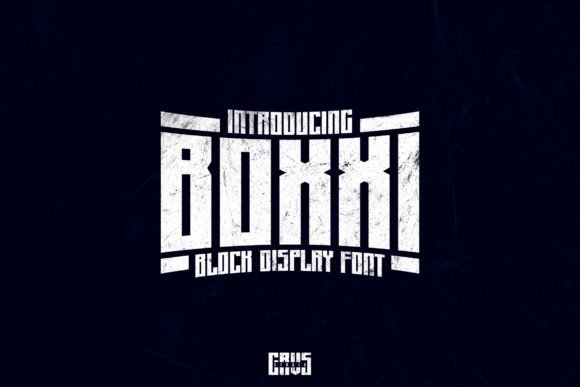
Introducing GRVS Boxxi Font: The Ultimate Sports-Themed Design Companion
I’ll never forget the time I was working on a logo design project for a local sports team. I had a clear vision of what I wanted to create, but somehow, the font just wasn’t cooperating. The letters looked stiff, and the overall design felt flat. I spent hours scouring the internet for the perfect font, only to come up empty-handed. That’s when I realized that sometimes, you just have to create your own solution. And that’s exactly what GRVS Boxxi Font is – a game-changing, sports-themed font designed to elevate your team logos, community logos, and all your creative projects.
What Makes GRVS Boxxi Font Special?
GRVS Boxxi Font is our newest addition, specifically crafted for designers, crafters, and creative hobbyists who need a reliable, high-quality font for their sports-related designs. Whether you’re working on a logo, sticker, jersey, invitation card, brochure, or any other project, this font is sure to impress.
- ✨ Unique and bold design: GRVS Boxxi Font has a distinctive, eye-catching style that’s perfect for sports-themed designs.
- ✅ Highly versatile: This font can be used for a wide range of projects, from logos and stickers to jerseys and brochures.
- 💯 Easy to read: Despite its bold design, GRVS Boxxi Font remains highly legible, even at smaller sizes.
- ⚠️ No italic version: Unfortunately, GRVS Boxxi Font does not come with an italic version, which might limit its use in certain design contexts.
GRVS Boxxi Font was inspired by the world of sports, where boldness, energy, and teamwork come together. Our design team wanted to create a font that captures the essence of sports, while also being versatile and easy to read. After months of research, experimentation, and refinement, GRVS Boxxi Font was born.
| Is GRVS Boxxi Font suitable for body text? | While GRVS Boxxi Font is primarily designed for headlines and titles, it can be used for body text in certain contexts, such as captions or descriptions. |